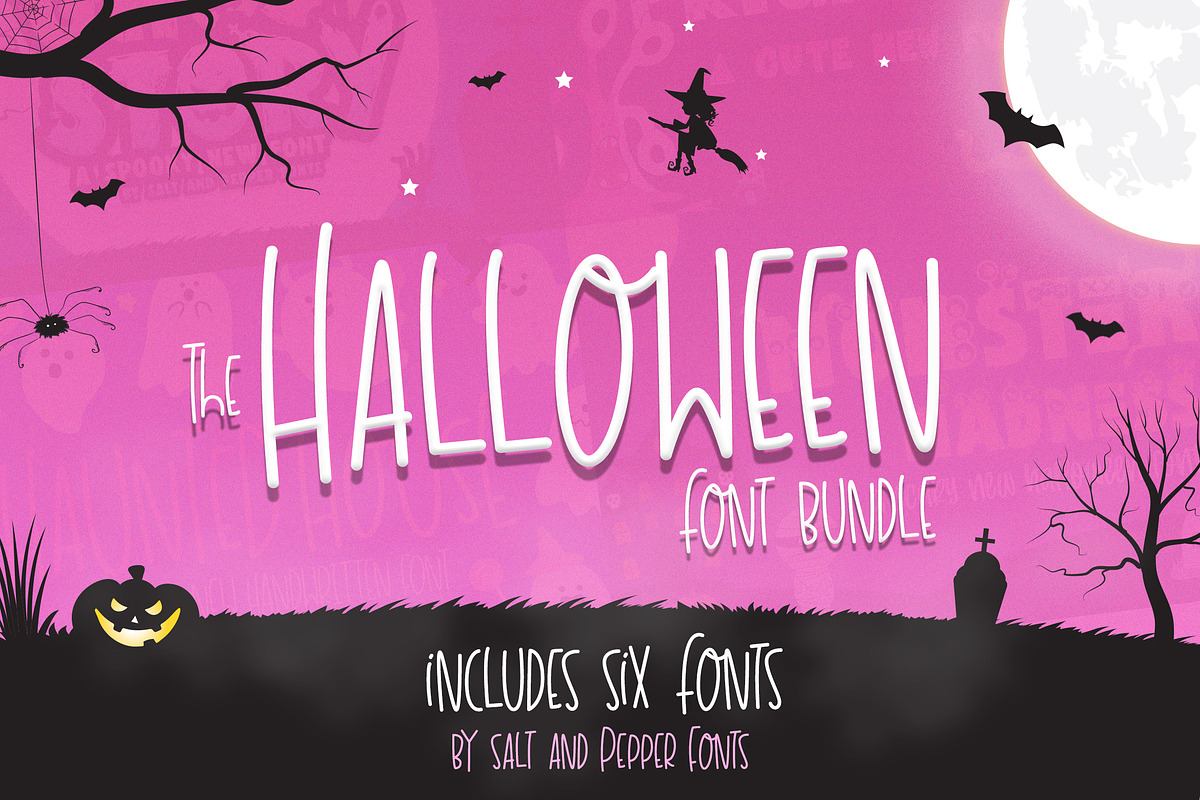
The Halloween Font Bundle (6 Fonts) Free Download is a spooky, fun-filled type collection designed to supercharge your Halloween creations. Featuring six uniquely crafted fonts—ranging from creepy and gothic to playful and cute—this bundle is perfect for party flyers, haunted house signage, trick-or-treat bags, merchandise, and social media posts.
The Halloween Font Bundle (6 Fonts) Free Download gives you everything you need to set the perfect spooky mood. Whether you're aiming for eerie elegance, cartoonish chills, or classic horror vibes, each font brings its own personality and punch. Mix and match styles for layered typography, thematic branding, or full-on Halloween campaigns.